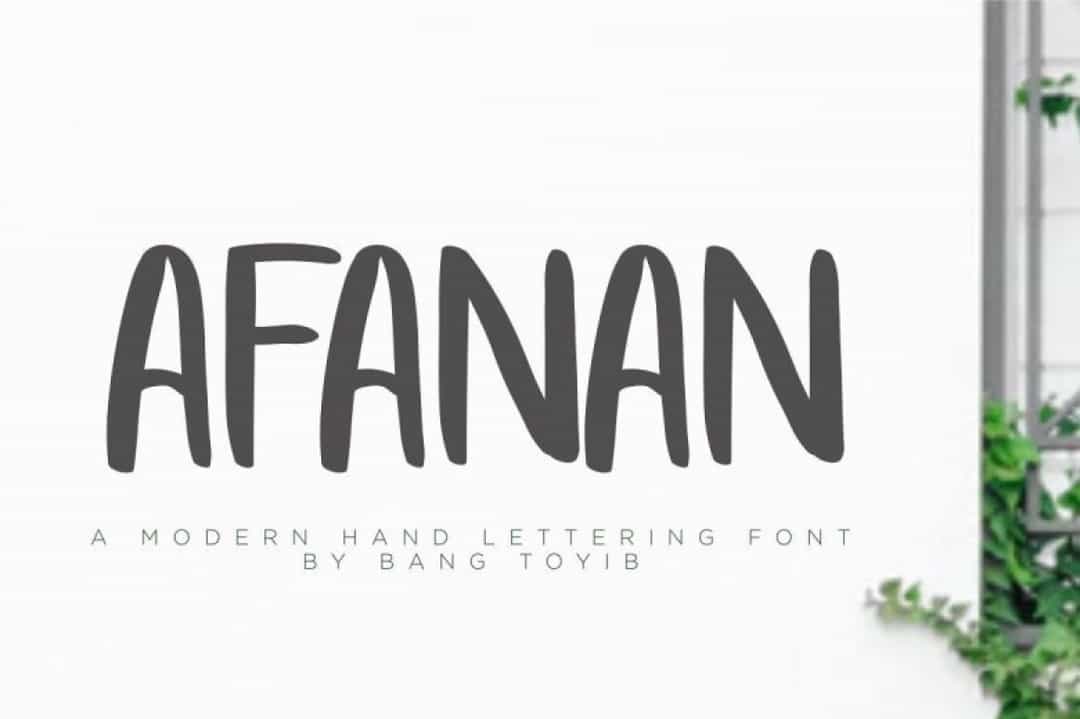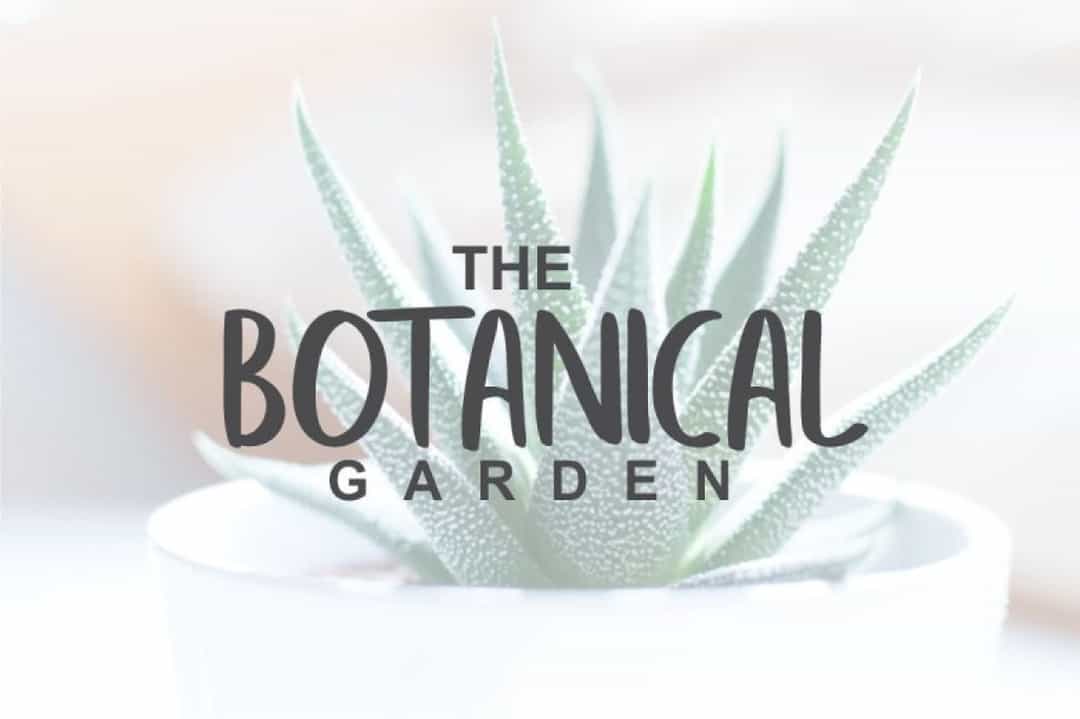
Gentleman, I present to your attention the Afanan font – a beautiful, minimalist handwriting font that you’ll find incredibly suitable not just for invitations, but for any kind of design project you can think of! Afanan is ideal for use in headline or display and is most applicable in logo branding projects, logotype fashion works, T-shirt textual initials, book cover labels, headline status posts among others.